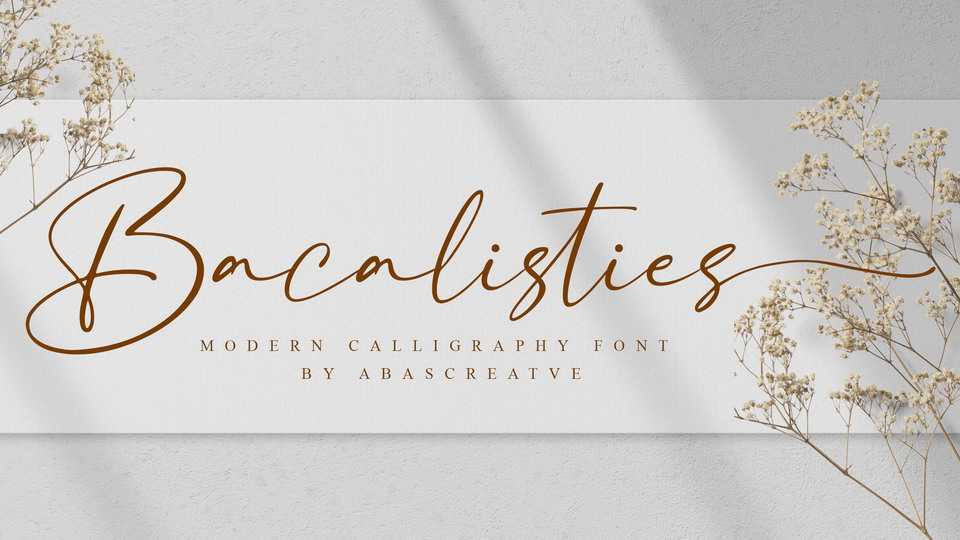
Download Bacalisties font, a stylish and delicate handwritten typeface. Bacalistie has a clean, thin and smooth vibe and it will be a hit for any design that you want to add it to.
Designer: Abas Creative